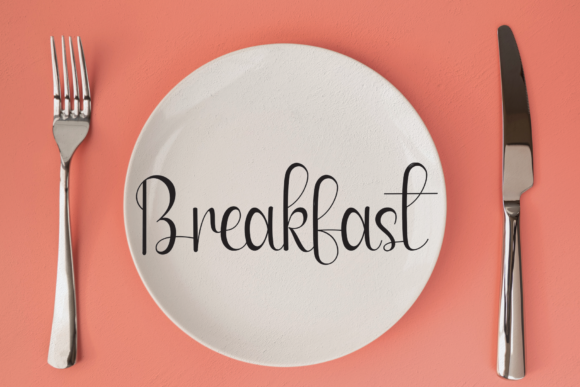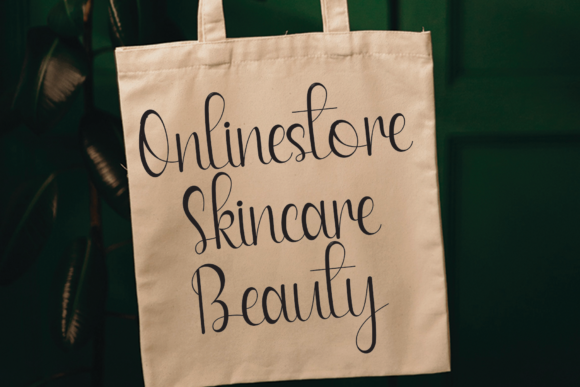
Handmade Farmhouse Font
db-ku.com - Script & Handwritten -- Handmade Farmhouse is a smart and playful script font. It looks stunning on wedding invitations, thank you cards, quotes, greeting cards, logos, business cards and every other design which needs a customized touch.